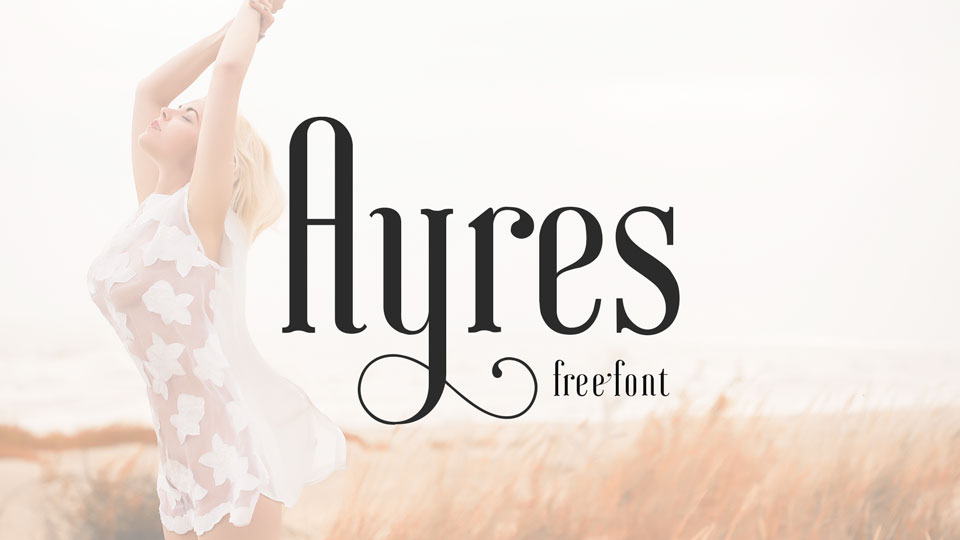
Feb 14, 2025SerifAyres Font Ayres is a condensed serif font, for display use. It contains uppercase and lowercase letters, numerals, symbols, alternates and ligatures. This font perfectly suits for wedding, fashion, branding and more. Font DetailsDesigned by: Mariel GornatiWebsiteLicense: Free for commercial use Download Ayres FontFile size: 82.17 KBCreated: February 16, 2025Updated: February 16, 2025 Download Explore similar fonts Elegance Natural Valentine Font Lameur Font Veloria Palace Font Connect Markets Font Maritime Empires Font Prestige Record Font # Classy# Condensed# Decorative# Elegant# Wedding More fonts by Mariel GornatiQuinn Font